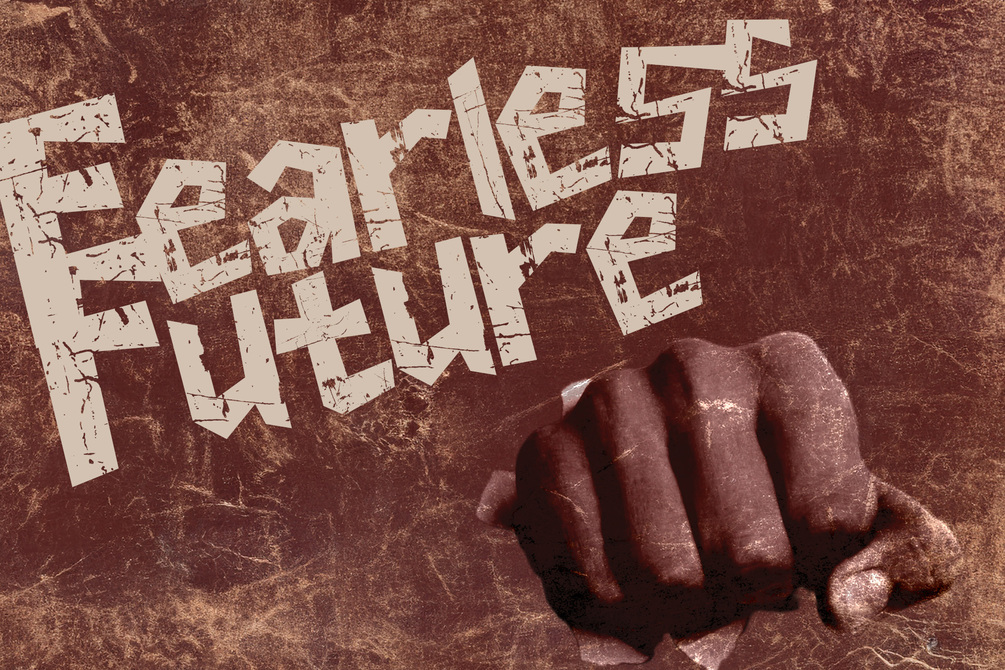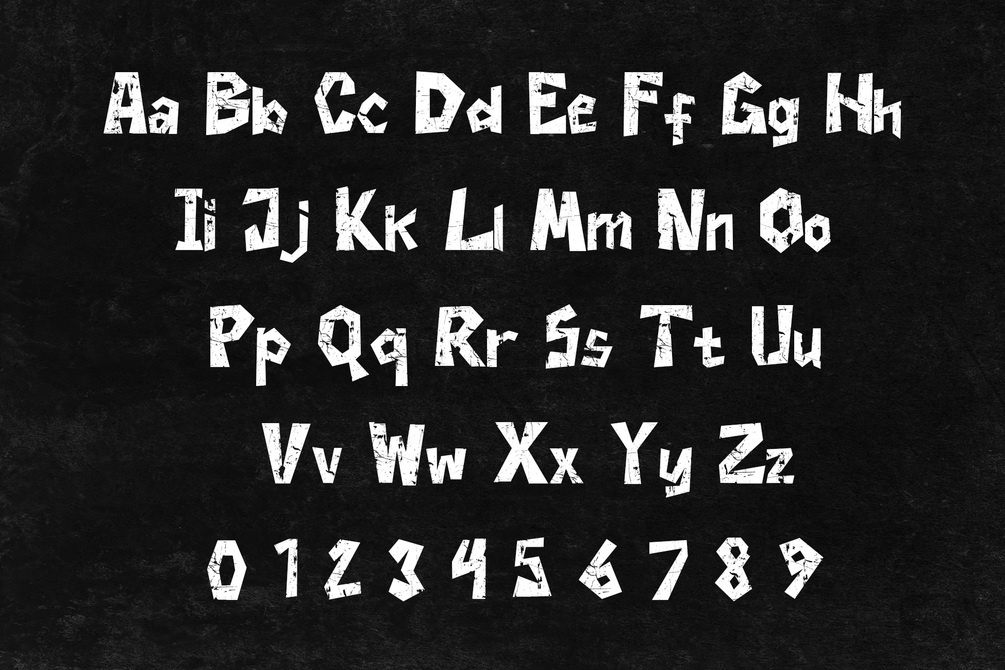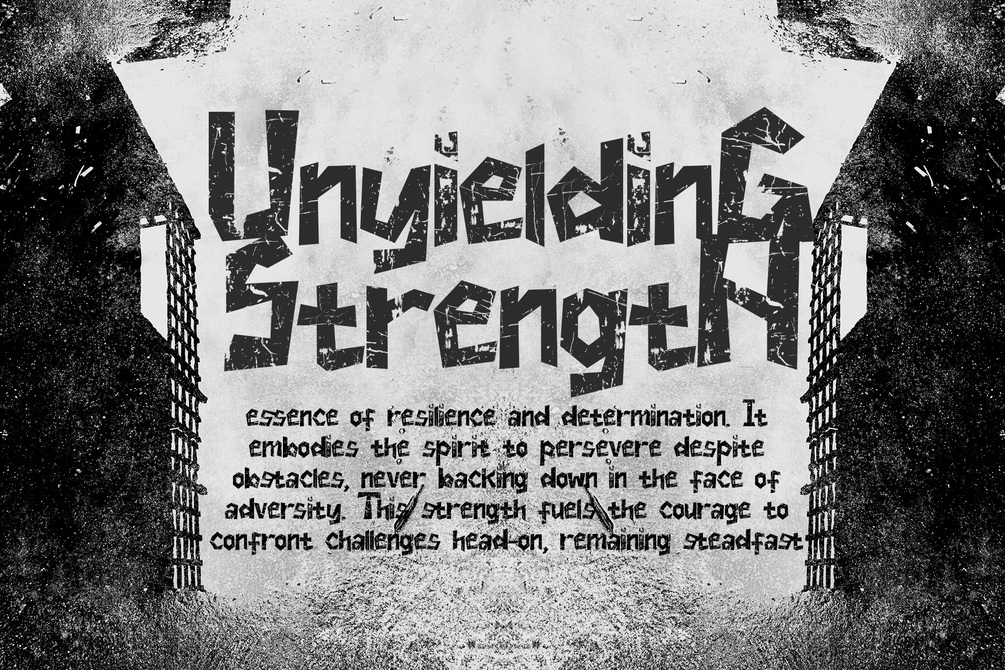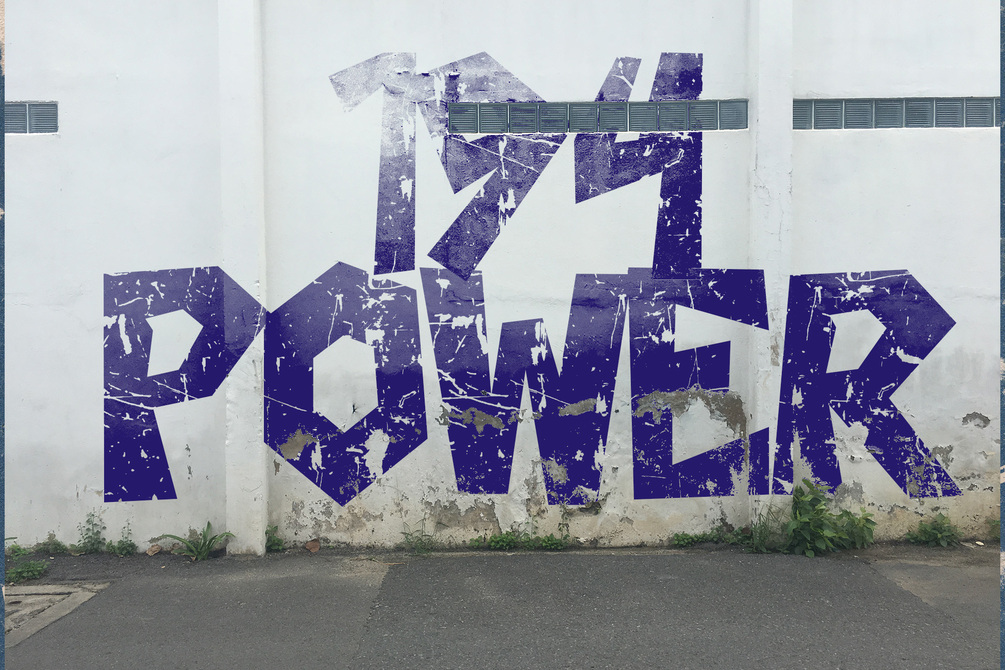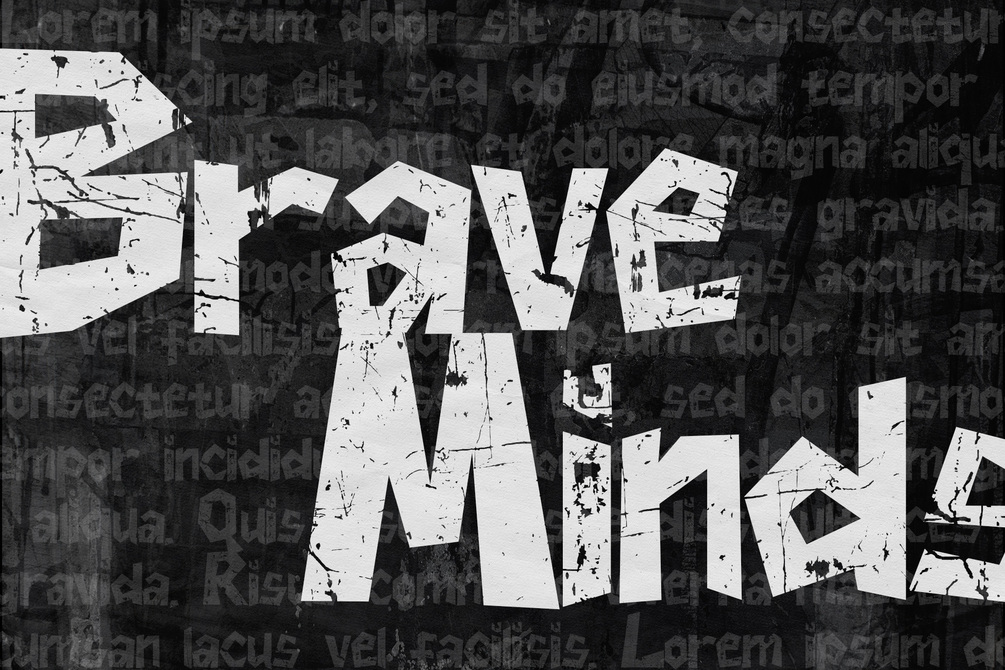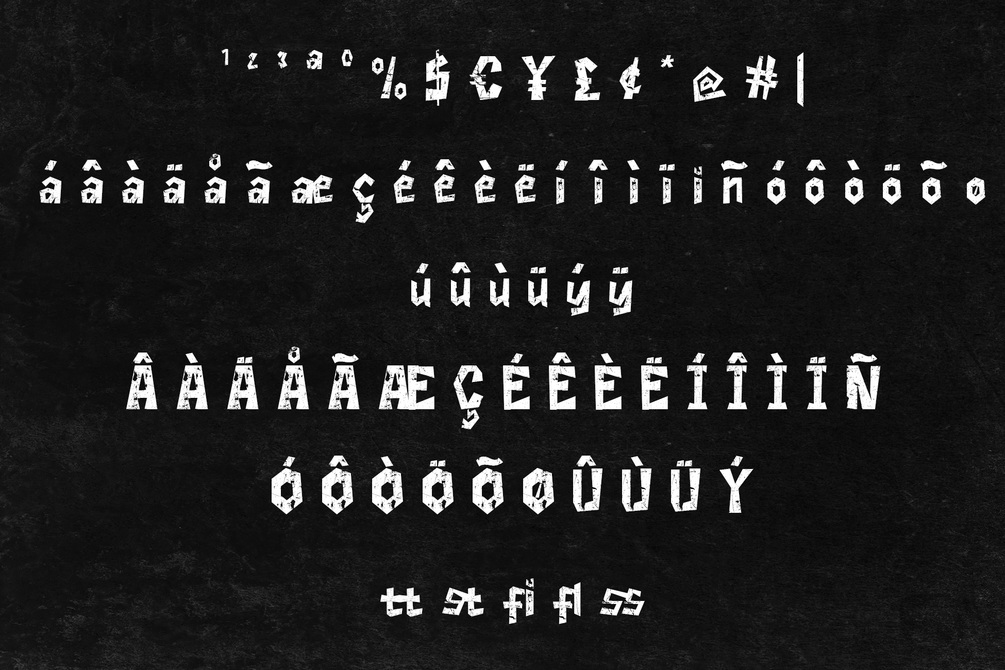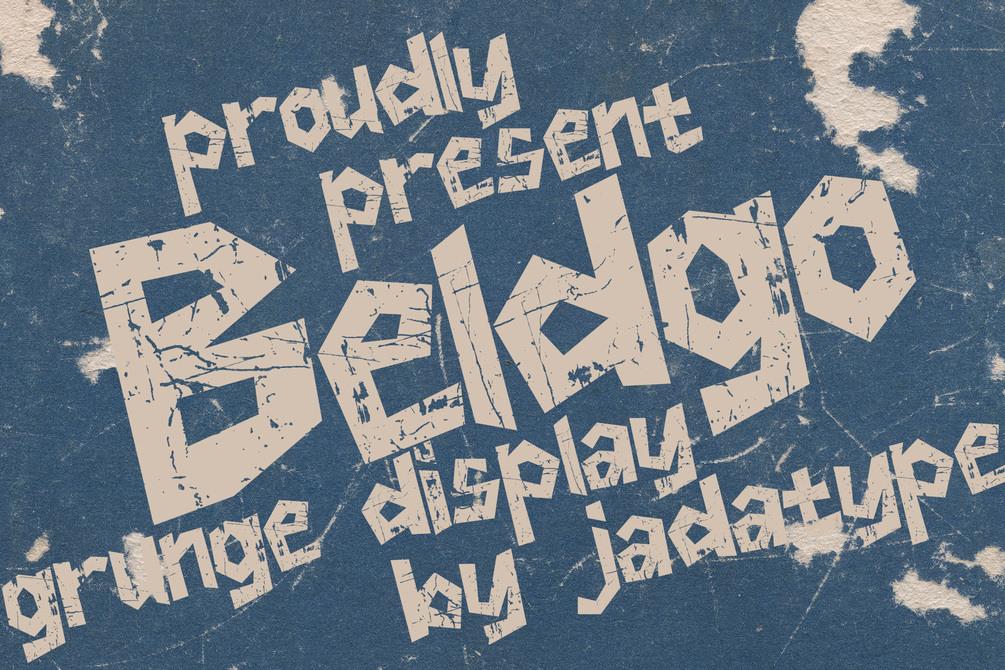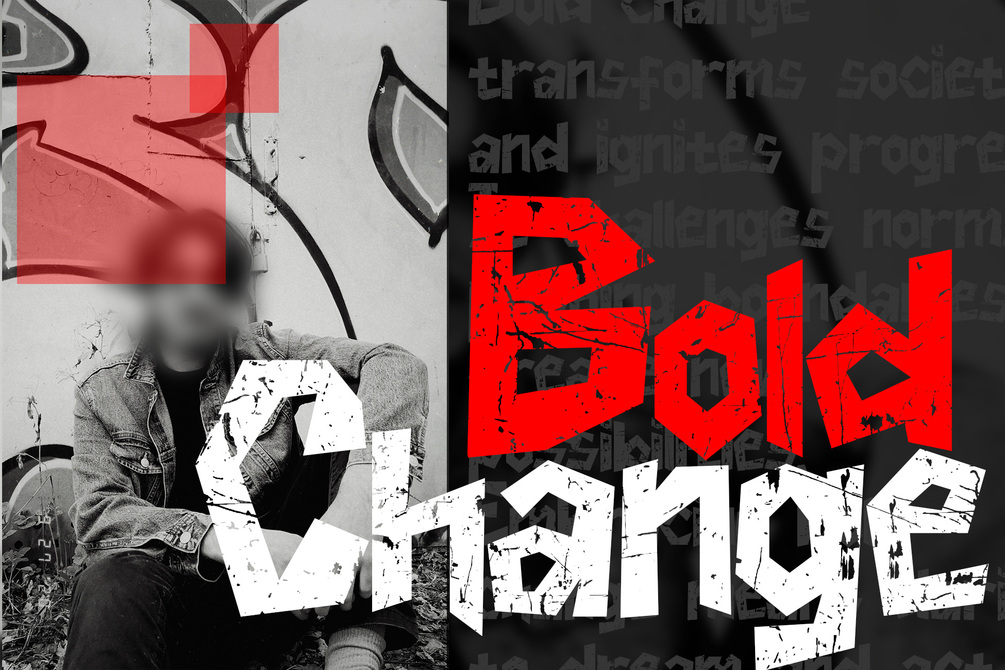
Beldgo Font
Beldgo is a Display Font that comes with Grunge Style. Suitable for product, Branding, social media, logotype and so on. contains standard English letters, numbers, punctuation, and several accents that support multilingualism.